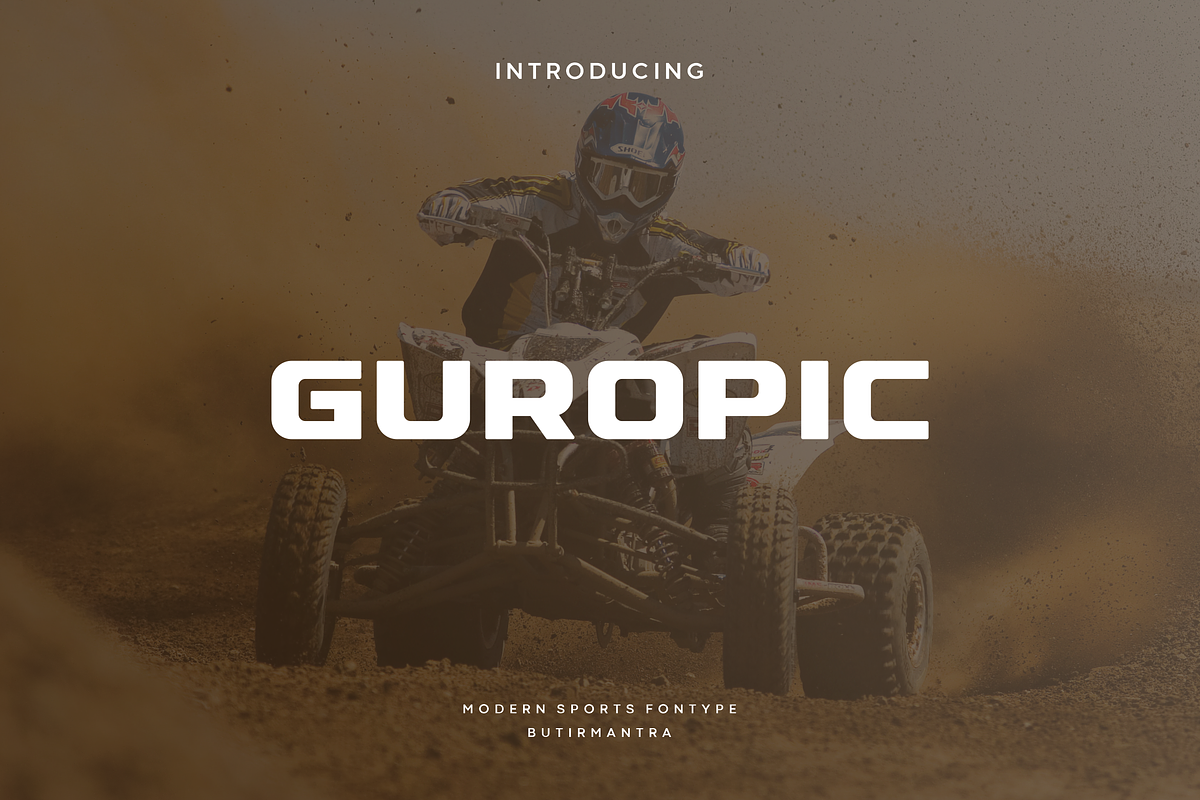
Please note that you must purchase this font for commercial use. You can download Guropic – Modern Display Typeface for free, strictly for personal testing purposes only. Guropic is a sleek and stylish modern display font designed to stand out with clean lines, geometric shapes, and high contrast. With its contemporary flair and eye-catching character, Guropic Modern Display Typeface Free Download is perfect for branding, fashion headlines, magazine layouts, logo design, product packaging, and bold social media visuals.
Its refined structure and minimalist elegance make it a go-to choice for creatives aiming for high-impact, premium-looking typography. Guropic includes uppercase and lowercase letters, numerals, punctuation, and multilingual support—offering full versatility for global design projects.
Whether you’re building a chic brand identity or designing modern editorial content, Guropic delivers bold style with polished simplicity.